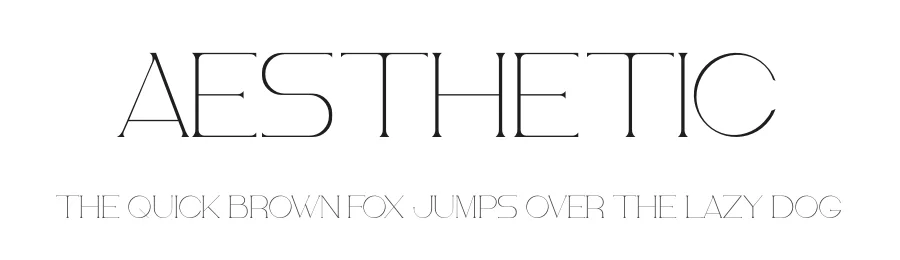
About Mirande Font
Mirande Specifications
| Font Family | Mirande |
| Full Name | Mirande |
| Glyph Count | 297 glyphs |
| PostScript Name | Mirande |
| Designer | Candra Hamdani |
Mirande ships with 2 OpenType features you can switch on in apps that support them (Illustrator, InDesign, Affinity, Figma, CSS font-feature-settings).
Mirande supports 226 languages.
Mirande Font is a versatile serif font that works for both headings and body text. Pair it with a contrasting sans-serif or slab serif font to add visual interest and a clear distinction between titles and body copy.
Mirande Font